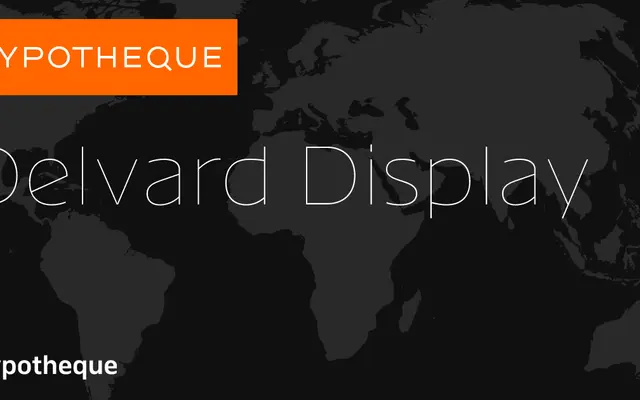
Delvard Display specimen from Typotheque
A high-contrast display serif from Typotheque, offered in six named subfamilies and six weight-like cuts ranging from One through Fat.
Delvard Display is organised around six named subfamilies — Amsterdam, Bengaluru, Copenhagen, Damascus, Edinburgh and Fortaleza — each sold individually, with weights running from One to Fat. The naming convention suggests distinct stylistic variants rather than a conventional weight axis. Suited to poster, headline and editorial work where strong contrast and typographic personality are required.
Delvard Display is a high-contrast serif intended for large-scale typesetting, with optical cuts and named subfamilies suggesting extreme stroke variation typical of display-oriented type design.